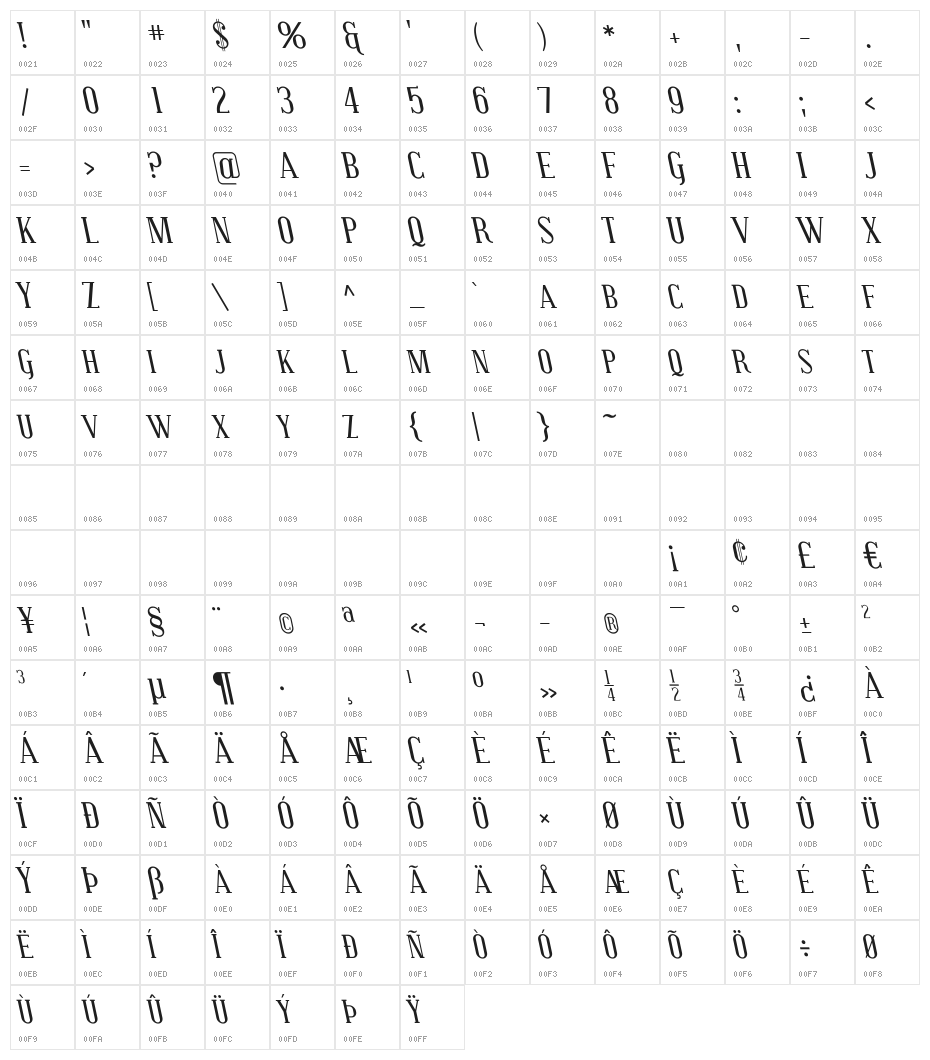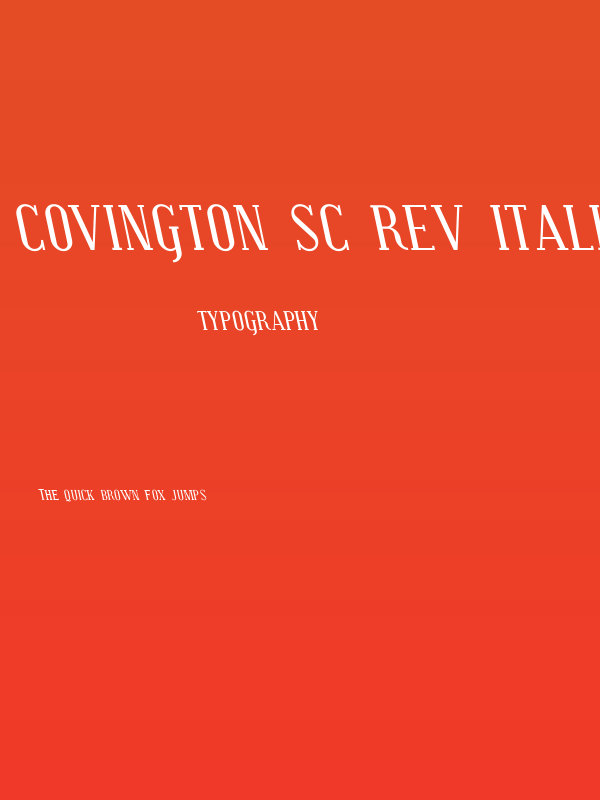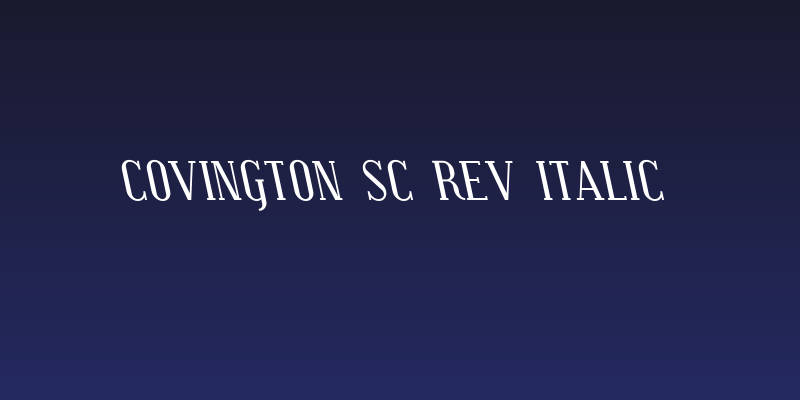
Covington SC Rev Italic Font
Covington SC Rev Italic Description
This font exhibits a classic and elegant serif style with a distinct italic slant, giving it a sophisticated and dynamic appearance. The characters are well-defined with moderate contrast between thick and thin strokes, enhancing readability while maintaining a stylish flair. The serifs are pronounced yet refined, adding a touch of traditional elegance. The overall design is balanced, with a slightly condensed width that allows for efficient use of space without compromising legibility. This font is versatile, suitable for both formal and creative applications, and its italic nature adds a sense of movement and emphasis to the text.